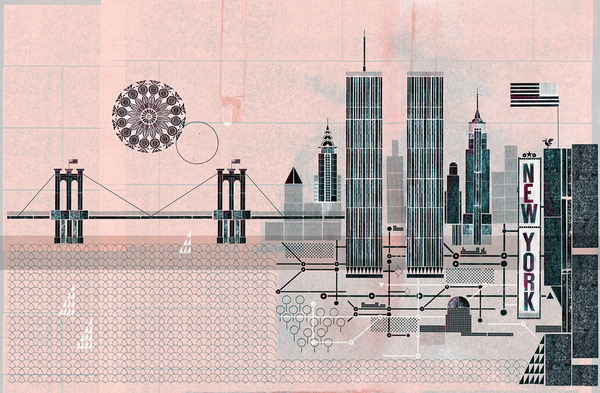
Type scene in New York | ||
Part of Prototype Experimental Foundry in New York City, this outfit designed the commercial Hebrew simulation font Kaiju (2002). [Google] [More] ⦿ | |
New York-based donationware font foundry. Site under construction. [Google] [More] ⦿ | |
Richard Kinch discusses the ruling in 1988 of the US Copyright Office. From the Federal Register, Vol 53, No 189, Thursday, September 29, 1988: "The purpose of this notice is to inform the public that the Copyright Office has decided that digitized representations of typeface designs are not registrable under the Copyright Act because they do not constitute original works of authorship. The digitized representations of typefaces are neither original computer programs (as defined in 17 USC 101), nor original databases, nor any other original work of authorship. Registration will be made for original computer programs written to control the generic digitization process, but registration will not be made for the data that merely represents an electronic depiction of a particular typeface or individual letterforms. If this master computer program includes data that fixes or depicts a particular typeface, typefont, or letterform, the registration application must disclaim copyright in that uncopyrightable data." [Google] [More] ⦿ | |
Aaron Burns, designer/typographer, was President of Lubalin, Burns & Co., Inc., New York City. In 1970, Aaron Burns, Herb Lubalin and Edward Rondthaler (from Photo-Lettering Inc.) founded the International Typeface Corporation (ITC), and Aaron Burns became its President. In 1959 he founded the International Center for the Typographic Arts (ICTA), and was a founding member of the International Center for the Communication Arts and Sciences (ICCAS). He is the author of "Typography," published in 1961 by Reinhold Publishers, Inc. From 1955 to 1960 he taught Advanced and Experimental Typographic Design at Pratt Institute, New York. He set up a type division at Rapid Typographers. There he helped promote the Typositor, or Photo Typositor (invented in Miami by Murray Friedel in 1959), which improved over the first photo type machine, the Rutherford. Rapid Typographers organized the Visual Graphics Corporation (or VGC) to make the best use of this new technology. Peter Bain writes: The owners of Rapid Typographers were impressed enough by Friedels invention to organize the new Visual Graphics Corporation. Initially the endeavor split its headquarters between the existing typographers address in midtown Manhattan and sunny South Florida. The Photo Typositor allowed an operator to see composition letter-by-letter as it was exposed, unlike the Rutherford. It also offered many of Photo-Letterings capabilities at a reduced price. The Typositor, as it became known, ingeniously used the same 2-inch film font format as the Filmotype. It speeded fashionably tight letter and word spacing, achievable in metal only with a razor blade after proofing, and had none of the size limitations of foundry type. VGC and its backers proceeded to convert metal typefaces to film, and pursued licensing with typefounders. [Google] [MyFonts] [More] ⦿ | |
New York City-based designer of the hipster typeface Laser Gun Gothic (2014). Behance link. [Google] [More] ⦿ | |
During her studies at Pratt Institute in New York, Aasghan Shah created the handcrafted typeface Homemade (2015). [Google] [More] ⦿ | |
Great letterer and poster designer in Brooklyn, NY. Home page. I particularly like the music poster Peephole (2009) done for the Peephole Band. [Google] [More] ⦿ | |
Abby Leighton is from the New England town of Simsbury, Connecticut. Brooklyn, NY-based student at the Pratt Institute in 2017. Her typefaces:
Any Body's Custom Design Embroidery from New York City offers about 40 embroidery fonts. [Google] [More] ⦿ | |
Designer in New York, b. 1989. Creator of the fat finger typeface Sarcastica (2013). Dafont link. [Google] [More] ⦿ | |
Graduate from the Emily Carr Institute (Vancouver) and the KABK in Den Haag in the Type and Media program (2009). Originally from Lethbridge, Alberta, Abi designed a modular type generator. At KABK, he created Arietta, a small family consisting of a simply constructed transitional roman and a bold roman, as well as multiple italic companions. He works as a graphic designer at Commercial Type in New York City. [Google] [More] ⦿ | |
Abrams Legacy
| The Abrams Legacy Collection was established to preserve and promote the legacy of renowned type designer and lettering artist, George Abrams (d. 2001). It is headquartered in New York City. The digital typefaces are managed and executed by Charles Nix. There are two type families, Augereau (a garalde in 13 styles) and Abrams Venetian (a Venetian in 6 styles). Abrams Venetian was designed in 1989 based on Nicolas Jenson's renaissance letterforms, but was not available until ten years later. Augereau was designed and released by George Abrams in 1997. [Google] [MyFonts] [More] ⦿ |
Abyss Type Company
| Or Mirko Velimirovic Iverson. Font engineer located in the greater New York City area, who has a BFA from Columbia College Chicago (class of 2013) and a type design diploma from The Cooper Union (class of 2017). From 2019 until 2021, he was the New York City chapter lead for Type thursday. In 2019, he set up Abyss Type Company. His typefaces:
Illustration and design breau in Brooklyn, NY. They specialize in commercial display typefaces. Behance link. [Google] [More] ⦿ | |
| From Amagansett, NY, Bill Troop's webless foundry: Bill Troop designed Adagio Didot (130 USD for 4 weights). Bill Troop's present company is Addict Inc., but I could not find a web page. Get News Gothic MM from the Bitstream Type Odyssey CD. See also here. [Google] [More] ⦿ |
Rotterdam-based typefounder, b. 1754, d. Oldenbarneveld, NY, 1828. He published Proeven van Letteren die Gevonden Worden in de van Ouds Beroemde Lettergieterye van Wylen de Heeren Voskens en Clerk, Nu van A. G. Mappa (Rotterdam, 1781). I cite from that link: In 1780, the father of Adam Gerard Mappa bought a large part of the Amsterdam typefounding firm of Voskens&Clerk, and Mappa soon discovered that he had talent for typefounding. He began his own business in Rotterdam where he issued this specimen book, but moved to Delft a few years later. There he become embroiled in the Patriot movement and led a volunteer regiment in the unsuccessful revolution of 1787. He was banished from Delft, spent a few years in France, and in 1789, emigrated to America with his type foundry on the advice of the Ambassador to France Thomas Jefferson. Mappa set up his new business in New York. According to a contemporary letter, and supported by the type in this specimen, his foundry contained not only "the Western, but the Oriental languages at the value of at least [pound sign] 3,500 New York currency." There was not much call for type in exotic languages, and while Isaiah Thomas considered his Dutch and German type "handsome," his "roman were but ordinary." Mappa was not skilled enough to produce the type needed by the new nation, and the foundry was advertised for sale on 1 February 1794. At least some of Mappa's equipments was acquired by Binny&Ronaldson, although their business did not start until 1 November 1796. This specimen book came to them with Mappa's typefounding equipment. Harvard's Houghton Library has a copy of the 1781 publication which contains a handwritten note by Theo L. de Vinne (which I was not allowed to photograph by Harvard's tight-sphinctered librarians). So here is what this letter says: Dirk Voskens was a typefounder of Amsterdam, a coster of types, not a cutter of punches. In 1677 he bought the foundry of Bleau and it was kept by his heirs and successors, (1) Dirk Voskens (2) Weduwe van Dirk Voskens (3) Voskens&fils (4) Voskens + [illegible]. In 1780 the foundry was sued for 8974 francs. P[illegible] were J. Enschedé and Sons, Ploos van Amstel, Preiter, Posthmans, DeBruyn and deGroot. How Mappa acquired possession does not appear. [...] Mappa got into trouble and had to take refuge in New York, where he began business as a type founder. He did not succeed. It is not known which became of the material he had in New York. To this, Bullen added by hand: It was purchased by Binny&Ronaldson. P.M. Kernkamp kindly sent me additional information on Mappa. He points out that Mappa was typefounder in these cities: Rotterdam (1780-1782), Delft (1782-1787) and New York (1789-1792). The 1780 date is also put into question because Mappa's father died in 1779. Mappa was active in a small army of patriots in Holland, and after a defeat in 1787 against Prussia, he was banned from Holland for six years. It may explain his emigration to America in 1789. He lived in New York until 1792, then in Second River, NJ, until 1794 and finally in Oldenbarneveld (Oneida Co., NY). His foundry, then in Albany, NY, was sold in 1803 for 1200 guilders. [Google] [More] ⦿ | |
New York-based designer of the fat comic book font The Dood (2019). It was designed to accompany his pen drawings. [Google] [More] ⦿ | |
| Adnauseum is an experimental design studio in Brooklyn, NY, run by Christian Acker, an American type designer (b. 1979, Norwalk, CT) who graduated from the Parsons School of Design in New York City in 2002. Christian occasionally guest lectures typography classes at Parsons. He set up Adnauseam in 2002 and Handselecta in 2003. He designed Sailor Gothic (2003), the Spanish-looking font Sailor Jerry (2002), Joker Straight Letter (2006), Mene One NY Throwie (2006), Mesh One AOK (2006), Meskyle Laid Back (2006), Sabe Ghetto Gothic (2006), and 24Hrs (2002, Cubanica). Klingspor link. [Google] [MyFonts] [More] ⦿ |
Commissioned typefaces include Bubble Tea (a bubblegum typeface designed for Stone And Strand, a NYC based jewelry startup), Kafeteria (a phenomenal geometric sans as part of the brand identity for Kafeteria, a new café at the Statens Museum for Kunst in Copenhagen by renowned Danish restaurateur Frederik Bille Brahe; just like the menu and experience at Kafeteria, the typeface combines Japanese minimalism with Danish culture), Good Girl (a sans designed for Stone And Strand, a NYC based jewelry startup), August KBH (custom typefaces for August Journal Issue 05: Copenhagen), Moet Hennessy, Gemic (a custom stencil typeface for Gemic, a global growth strategy firm with offices in NYC, Helsinki, Toronto, and Berlin). [Google] [More] ⦿ |